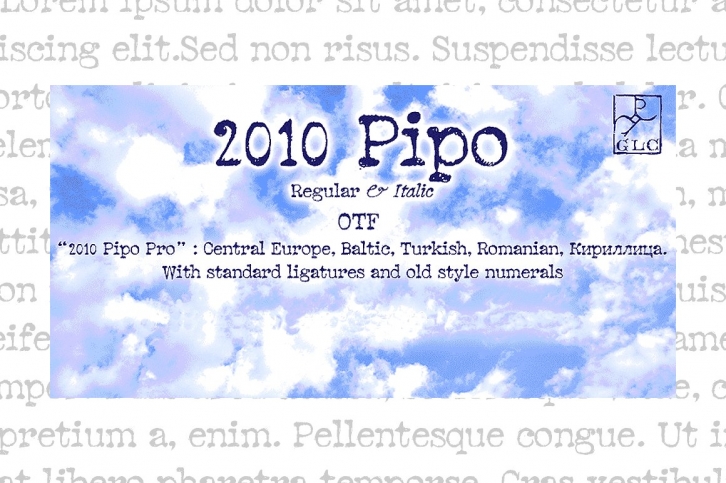
This font is a looking like manual slab serif style. The "Pro" version is containing West (including Celtic) and North European, Icelandic, Baltic, Eastern, Central European, Turkish and CYRILLIC specific characters, plus old style numerals and standard ligatures.